Book of the Month (March 2022): “Size-specific adjustments to type designs”
Today, I would like to introduce “Size-specific adjustments to type designs,” written by Tim Ahrens and Shoko Mugikura.
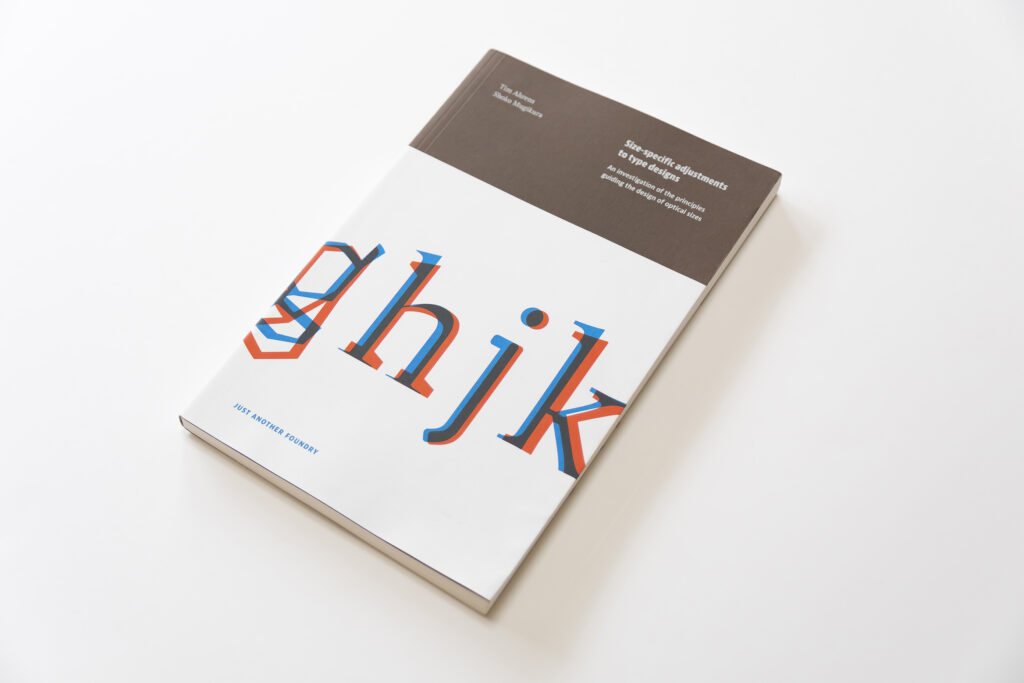
According to the character size used, variations with different structure and design of typeface may be contained in a family in Latin typeface. This book is about the historical background and application of optical scaling in typeface design, in which adjustment is made by size.
The first half of the book is writing based on the author’s thesis, but the latter half of the book is like a specimen of typeface with different styles by size. You can enjoy the differences even if you are not very good at English.
“Size-specific adjustments to type designs”
Author: Tim Ahrens, Shoko Mugikura
Publisher: Just Another Foundry